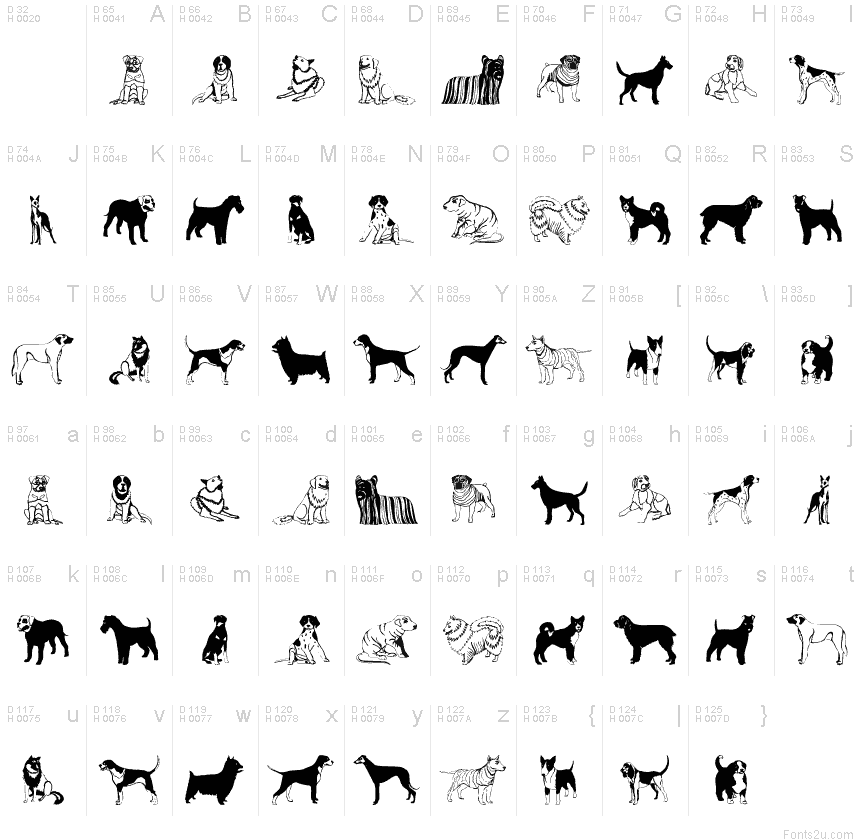
HundeDogsChiens by M. Klein is a free dog dingbat font built from hand-drawn breed illustrations. The figures range from lightly outlined hounds to dark, shaggy silhouettes, with alert faces and recognizable coats. Each dog has an amiable, storybook quality.
Animal lovers and pet-focused businesses can use the set for grooming salon branding, veterinary posters, and canine event merchandise. Its varied breeds also suit children's publishing and shelter campaigns, where the drawings can act as friendly scene-setting images for families and young readers.